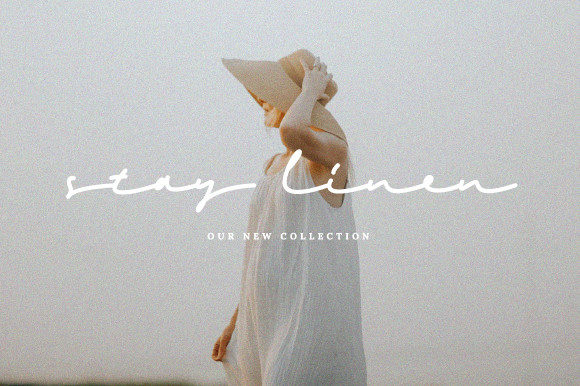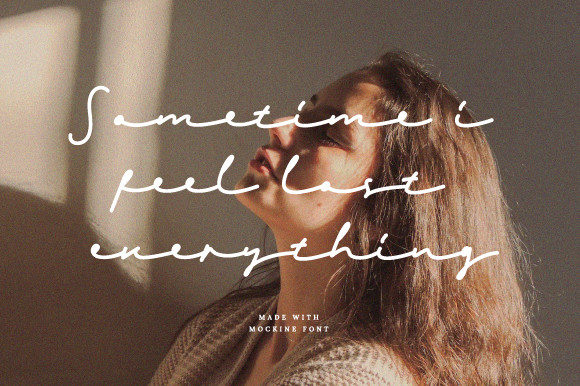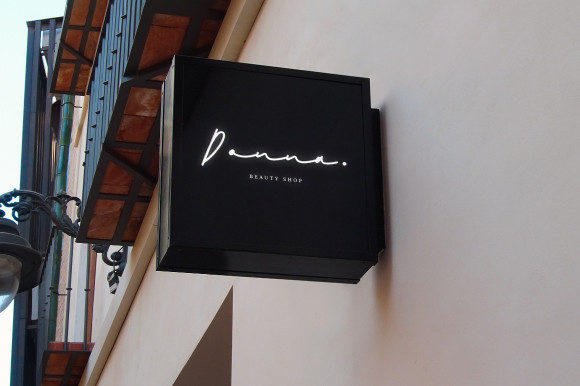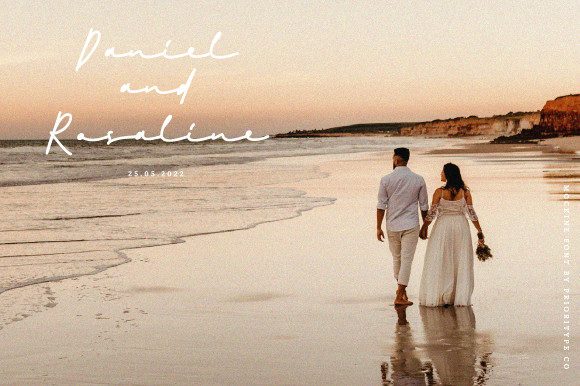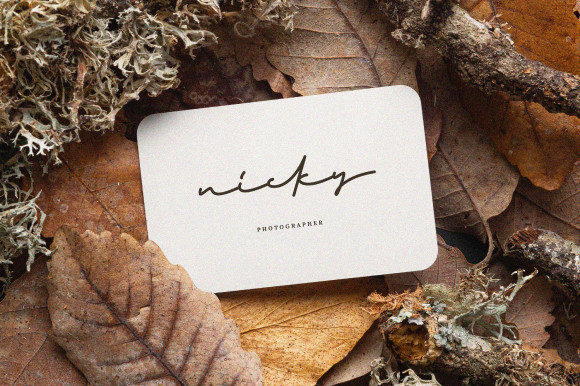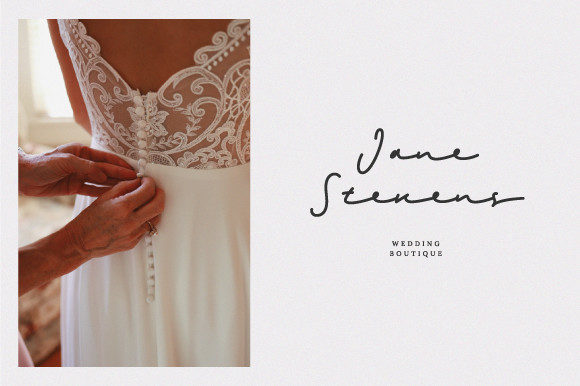
Introduction to Mockine Font
As designers, we’ve all been there – staring at a blank canvas, trying to bring a creative vision to life. It’s the moment when the perfect font can make all the difference. Imagine the thrill of seeing your design come together with a beautiful, handwritten touch that exudes elegance and sophistication. Enter the Mockine Font, a stunning Monoline Script font that’s about to revolutionize your design projects.
With its natural hand strokes and versatile style, Mockine Font is the perfect design resource for any creative project. Whether you’re working on a wedding invitation, a thank you card, or a logo, this high-quality font is sure to add a customized touch that will leave a lasting impression. And the best part? It’s available for free download, making it a valuable addition to any designer’s toolkit.
Key Features of Mockine Font
- High-quality design: Mockine Font is a premium font designed for creative projects, offering a unique and sophisticated look.
- Transparent background: Mockine Font features a transparent background, allowing for easy integration with various design elements and backgrounds.
- High-resolution design: Mockine Font is designed at a high resolution of 300 DPI, making it perfect for print and digital projects.
- Unique characteristics: This font boasts a distinctive style, with intricate details and a touch of elegance, setting it apart from other fonts in its class.
Honest Review: Mockine Font
I recently had the chance to experiment with the Mockine Font, and I must say it’s been a delightful addition to my design toolkit. As a designer, I’m always on the lookout for high-quality fonts that can elevate my creative projects.
Here are some aspects where the Mockine Font truly shines:
- ✨ Unique and modern design that can add a touch of sophistication to any design project
- ✨ High-quality, crisp typography that looks great on both digital and print materials
- ⚠️ Limited font sizes and styles, which might not be suitable for complex design projects
- ⚠️ No transparent background option, which can be a drawback for designers who need to use the font on images with complex backgrounds
Overall, I’m impressed with the Mockine Font’s potential as a design resource. While it may have some limitations, its high-quality design and free download option make it a great choice for designers working on simple to medium-complexity projects. I’d definitely consider using it again in the future.
Mockine Font
Tips for Getting the Most Out of Mockine Font
To get the most out of Mockine Font, use it in conjunction with a transparent background to create a high-quality design. This will allow the font to stand out and make your creative project truly unique.
Mockine Font is perfect for a variety of design projects, including:
- Infographics and data visualizations